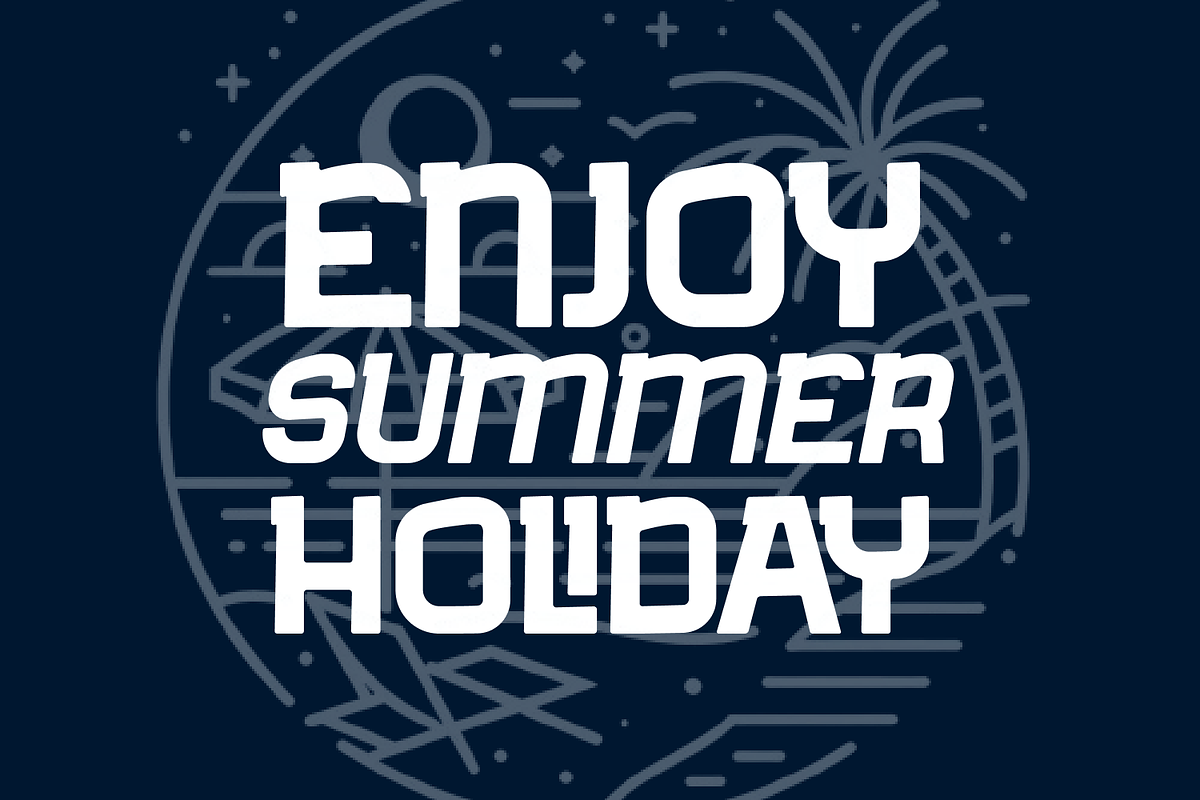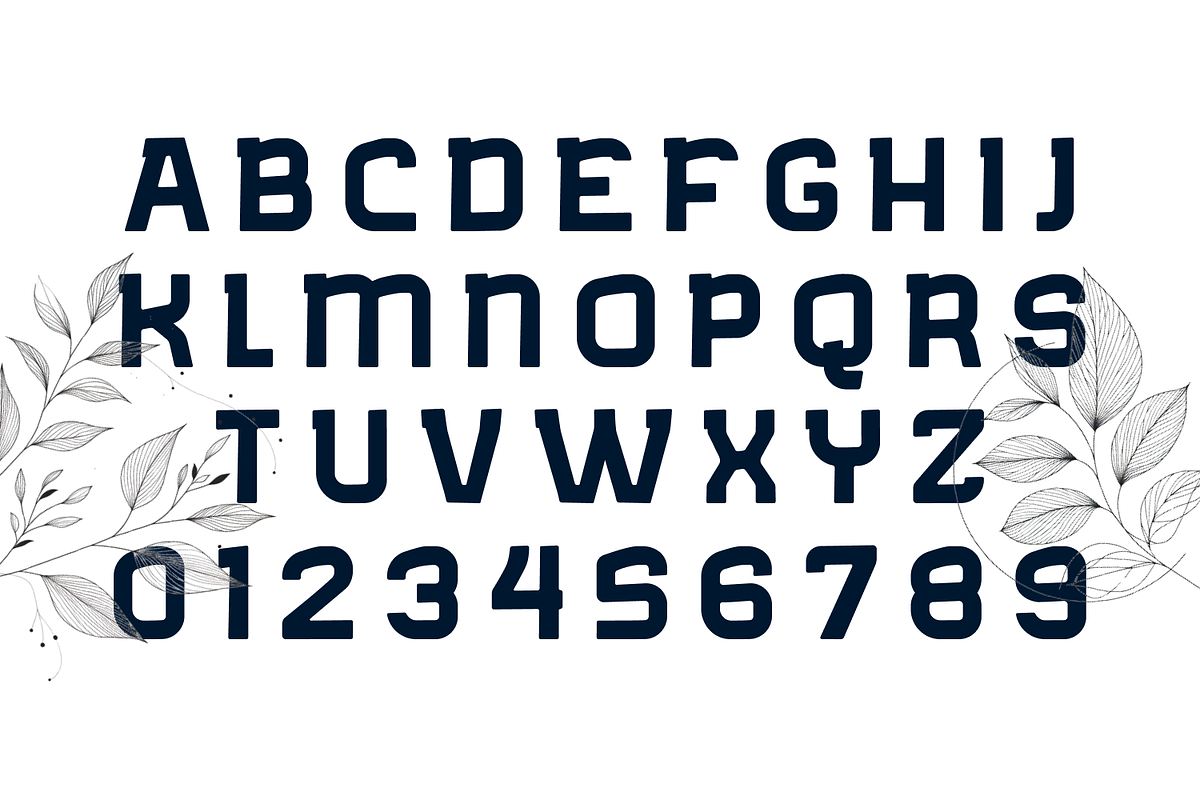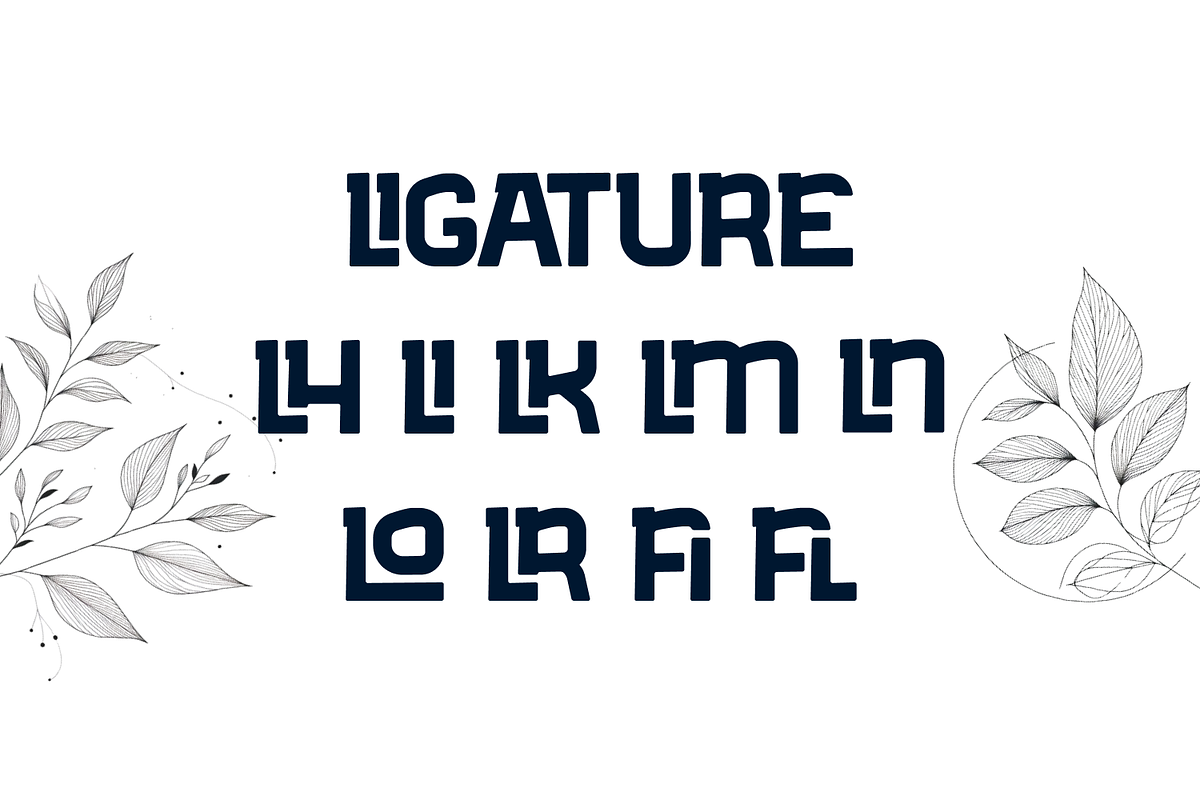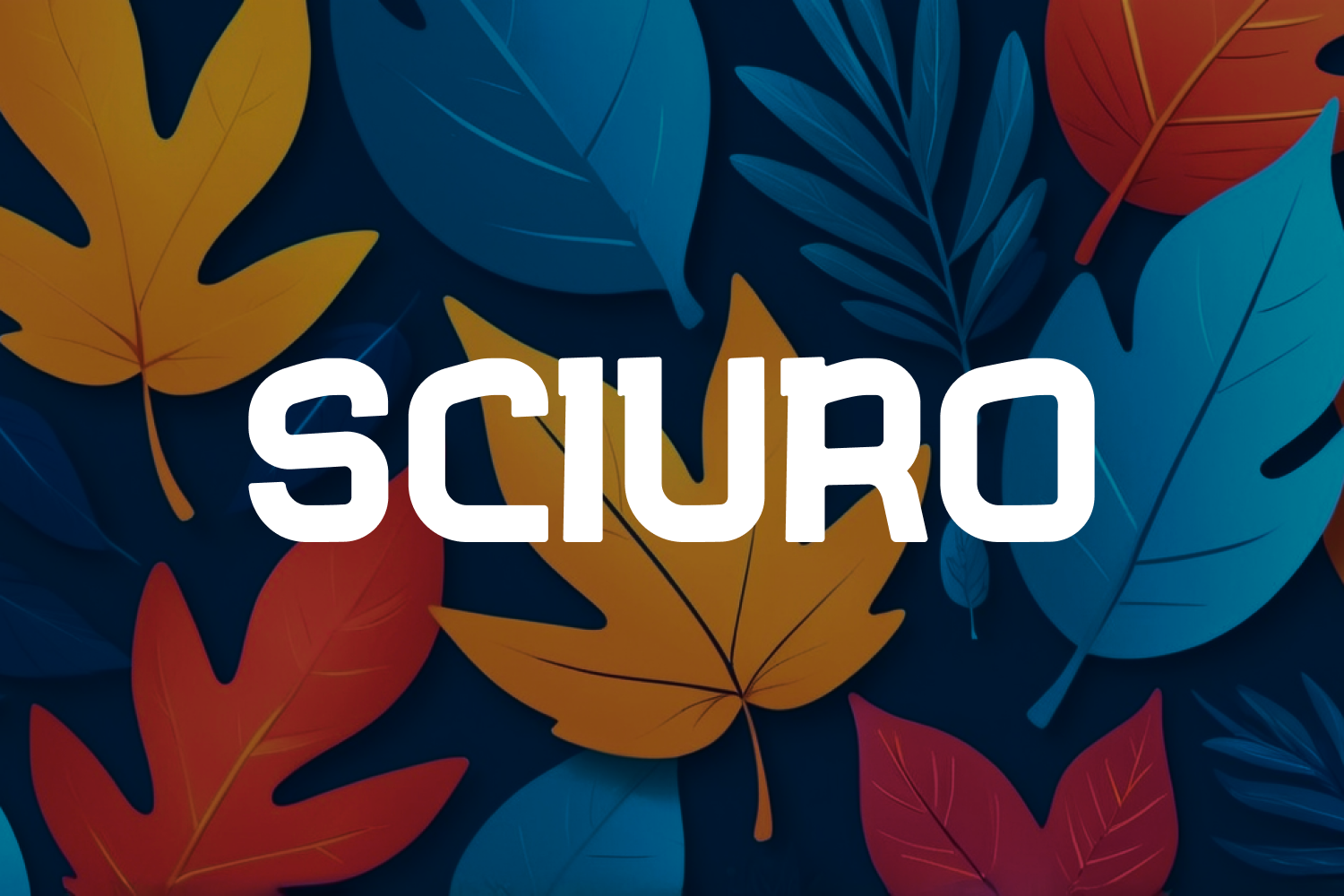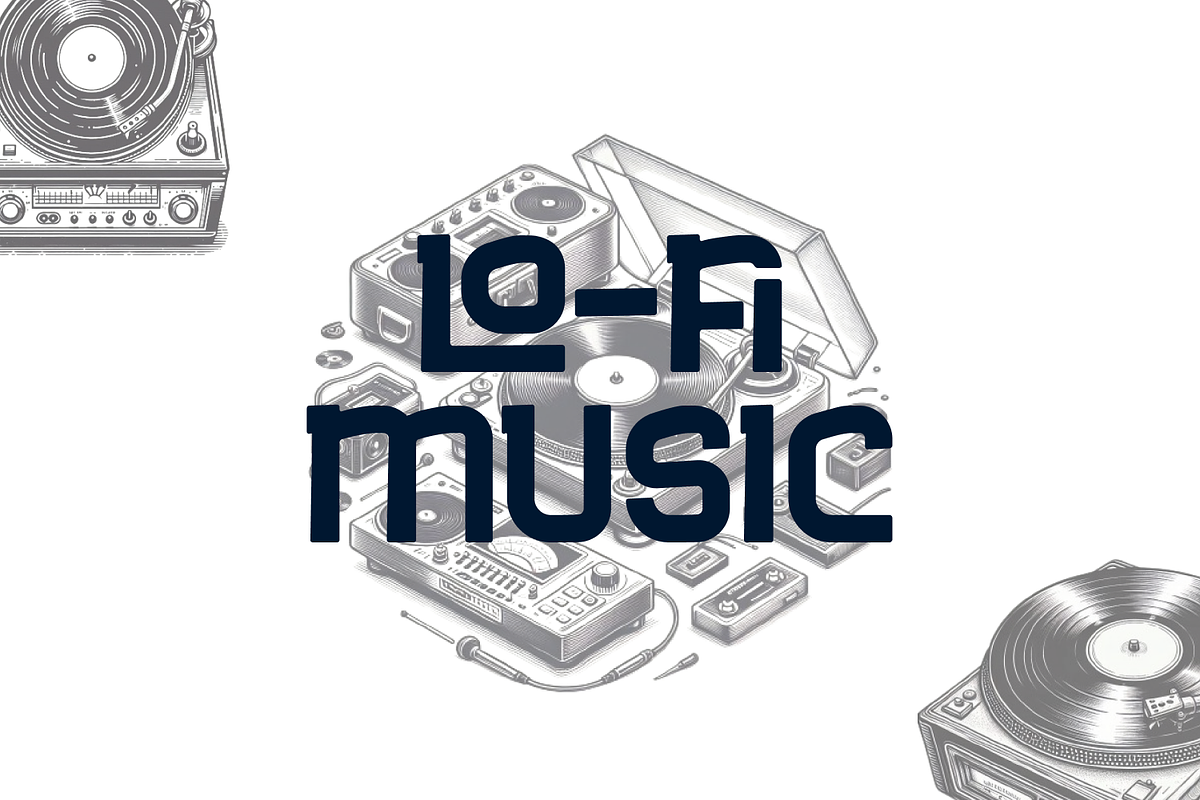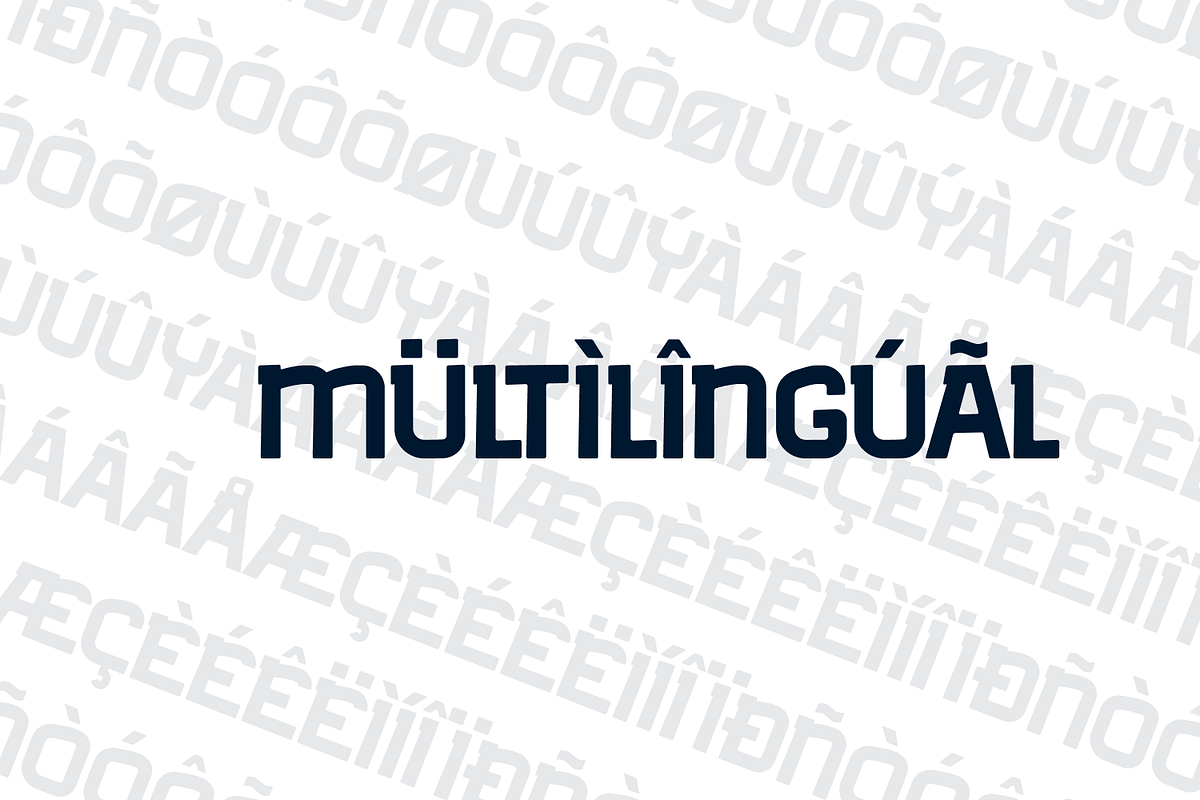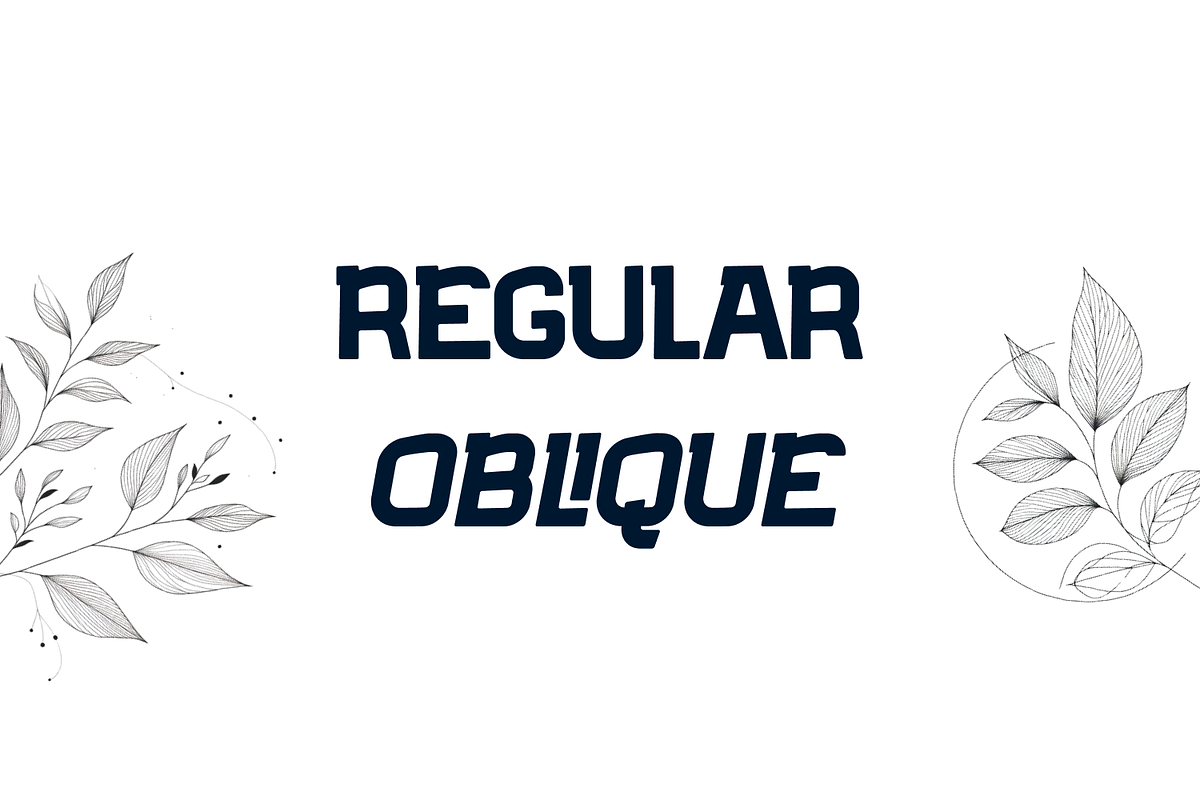
Sciuro Playfull Font
Sciuro is a vibrant and playful sans serif font designed to bring a cheerful and lively touch to your projects. It offers two versatile styles:
Sciuro Regular: The regular variant of Sciuro features clean, smooth lines and a straightforward design, making it perfect for a wide range of applications. Its playful yet professional appearance ensures readability while adding a hint of fun to your text.
Sciuro Oblique: The oblique variant takes the regular style and gives it a dynamic slant, adding a sense of movement and energy. This style is ideal for highlighting important text or creating emphasis, while maintaining the playful essence of the font.
Both styles of Sciuro are well-suited for use in headlines, posters, advertisements, branding, and any project that requires a touch of playfulness without sacrificing clarity. With Sciuro, your text will stand out with a unique and engaging character.